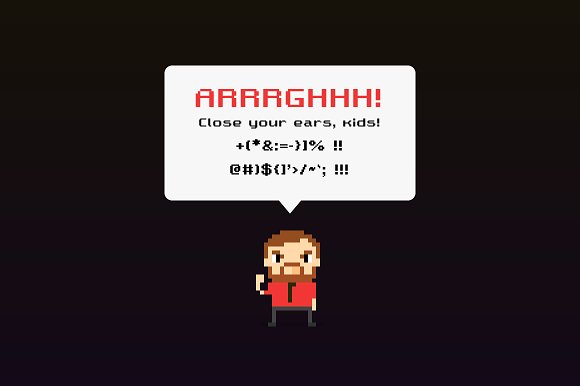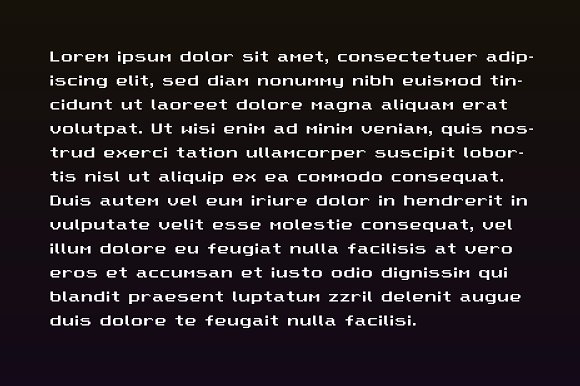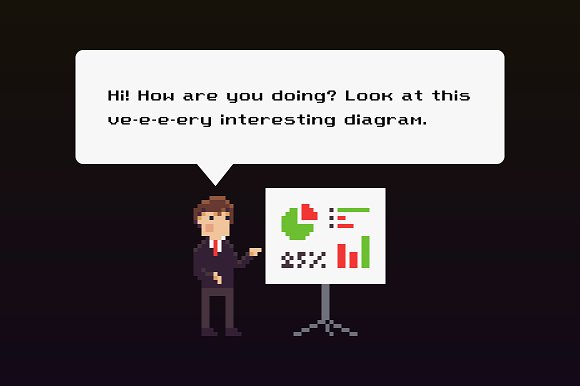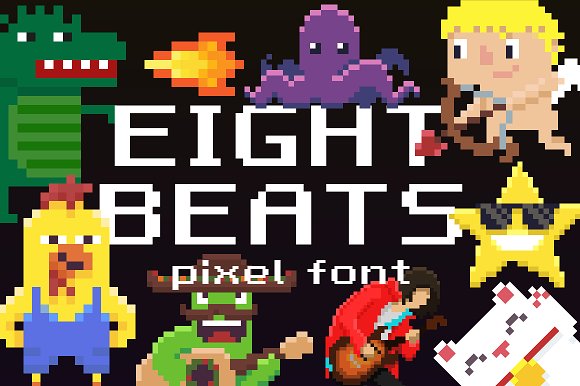
Eight Beats: pixel font
Here it is! Eight Beats is a pixel font for your game or retro-looking project. It has capital and small letters, numbers, symbols and punctuation marks.